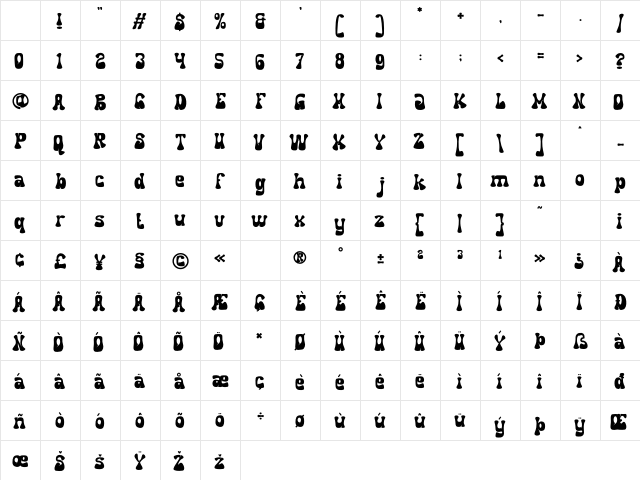
Complete Funkdash Regular glyph index. Displaying only characters natively supported by Funkdash Regular font.
Funkdash has an approachable, lighthearted character - its loose, expressive forms are well-suited to children's content, casual branding, and fun-first design.
Font Pairing: Pairs well with a rounded or humanist sans for body copy, maintaining the friendly tone without relying on Funkdash to carry extended reading.
Pro Tip: Use Funkdash at larger display sizes where its expressive character can land. Pair with a clean, simple sans for body copy to maintain readability.